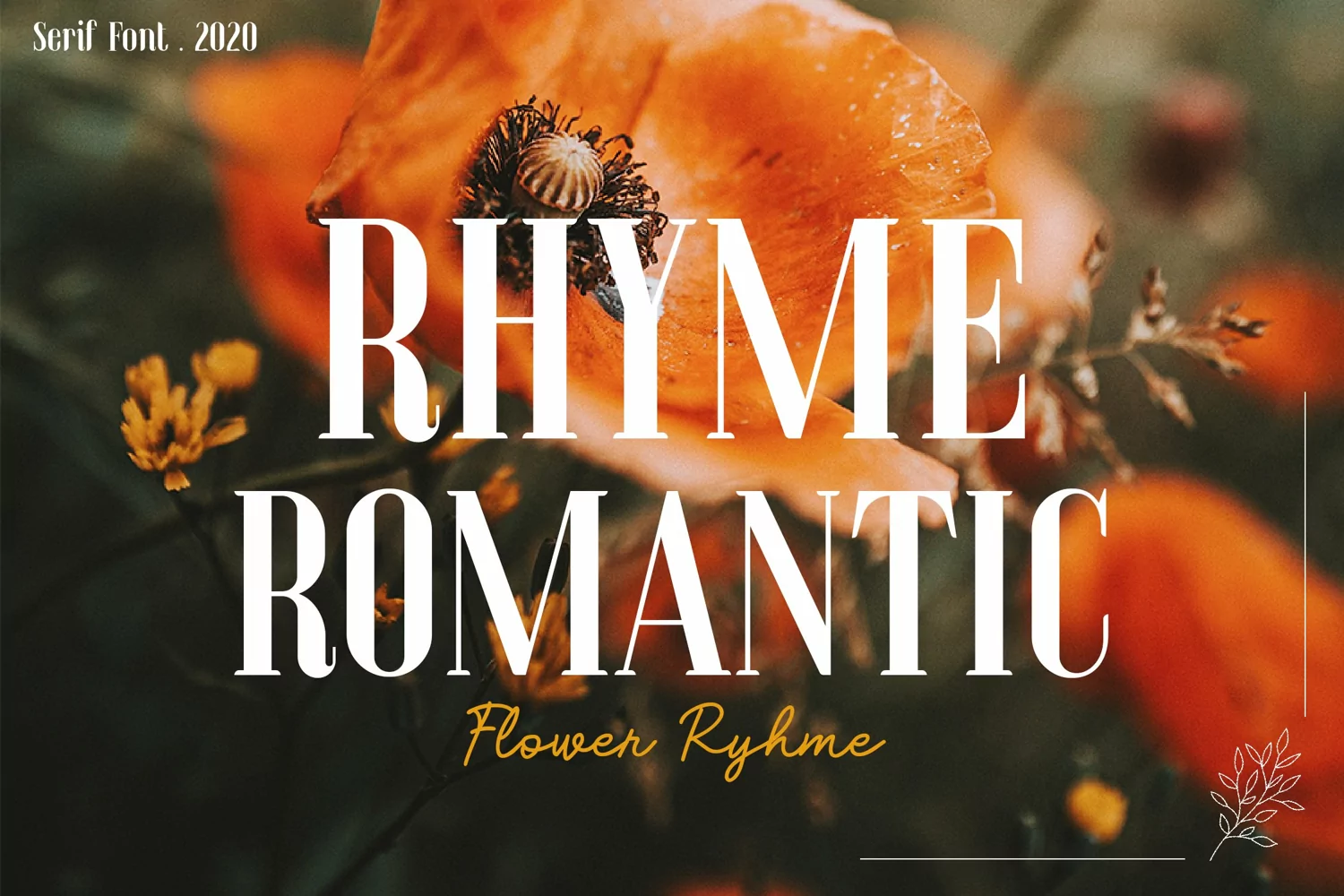
Flower Rhyme - Romantic Serif Font
Flower Rhyme Serif font is perfect for your up coming projects. Such as luxury logo and branding, classy editorial design, magazine, fashion promotional, boutique branding, stationery design, blog design, modern advertising design, card invitation, art quote, home decor, book/cover title, special events and any more.